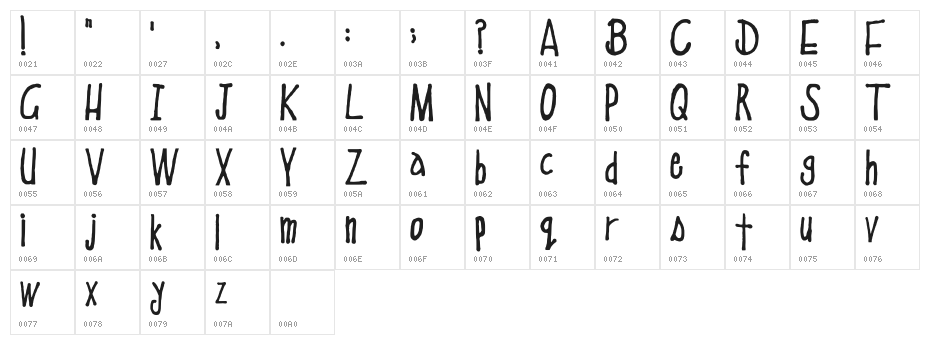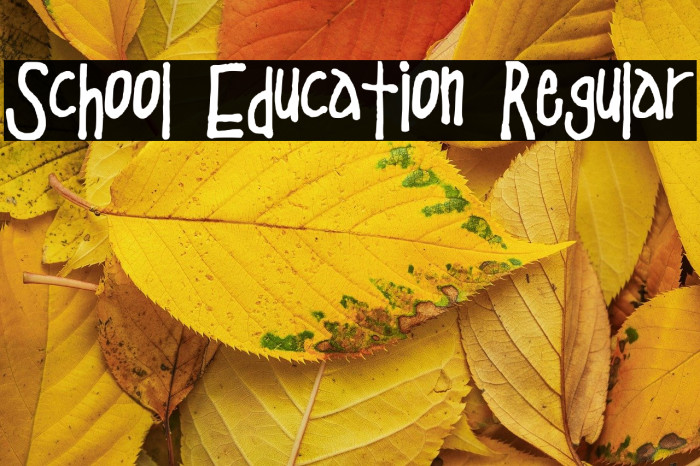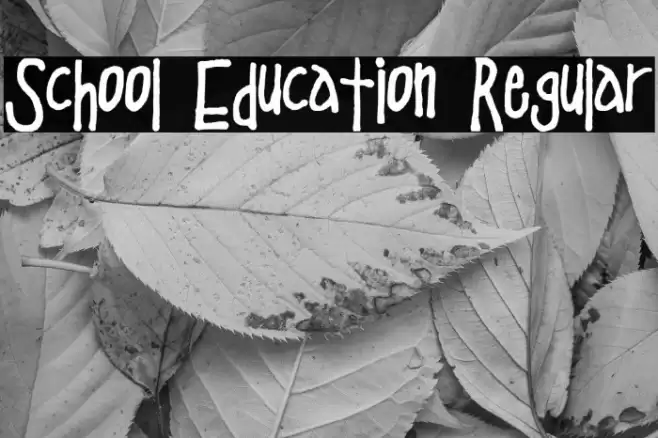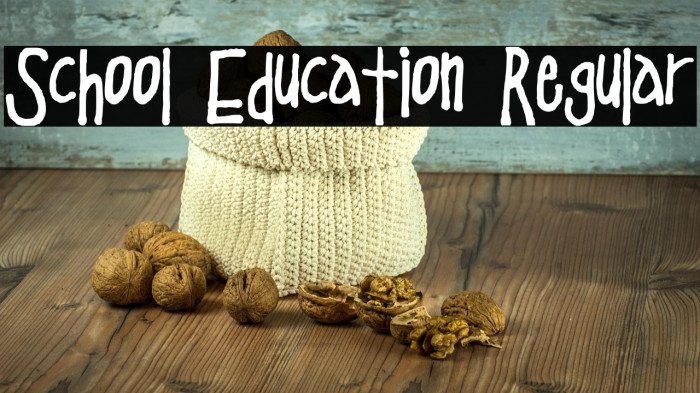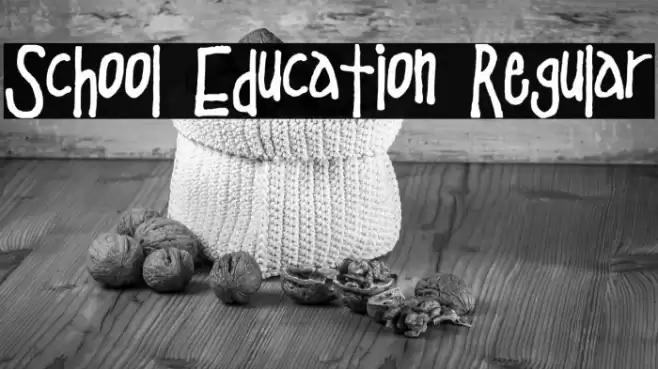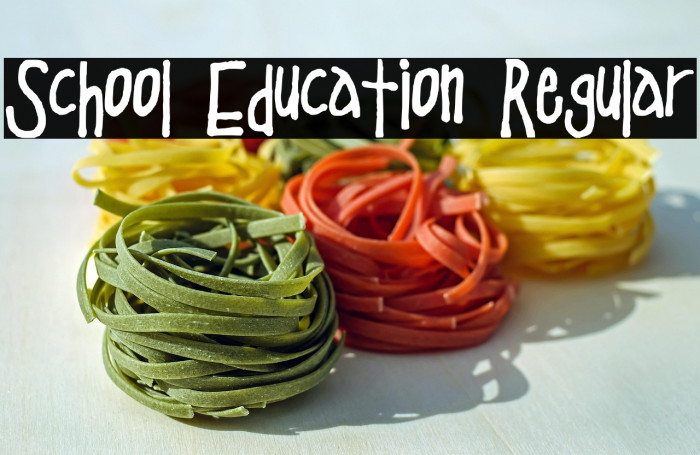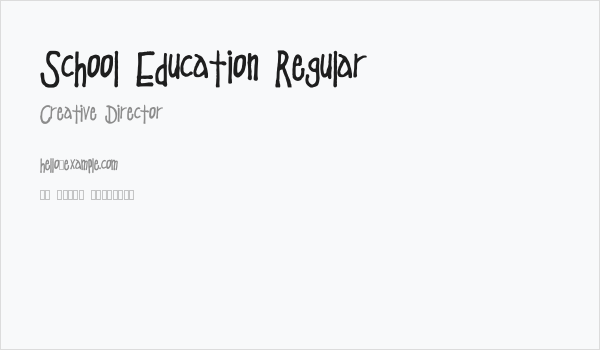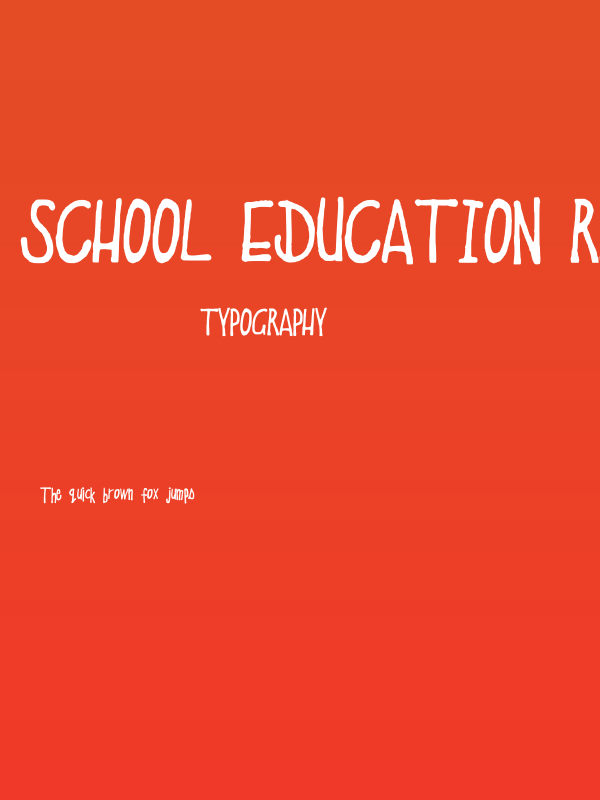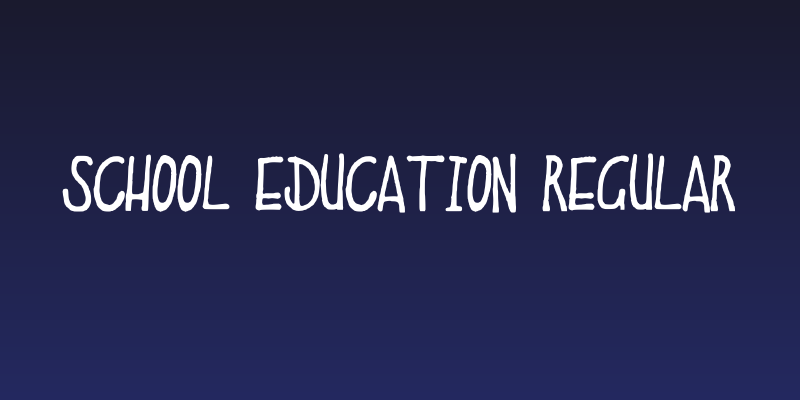
School Education Regular Font
School Education Regular Description
This font features a playful, handwritten style that mimics the look of chalk or marker writing on a school blackboard. The letters are slightly irregular, adding a casual and informal feel. The uppercase and lowercase letters maintain a consistent style, with rounded edges and a slight tilt, giving the impression of being hand-drawn. The numbers and special characters follow the same design, ensuring uniformity across all glyphs. This font is ideal for projects that require a friendly and approachable aesthetic, such as educational materials, children's books, or creative posters.
| Use Case | Headlines, Posters, Educational Materials |
| Proposed Projects | Ideal for educational materials, children's books, and creative posters. |